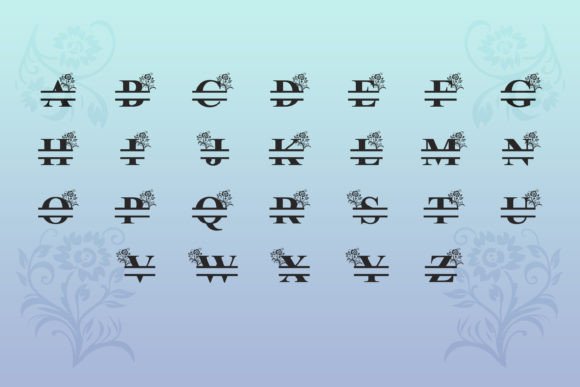
Unleash the Beauty of Nature in Your Designs
Have you ever found yourself sitting in a lush garden, surrounded by vibrant flowers and the soothing sounds of nature, feeling inspired to create something truly special? That’s exactly the moment when the idea for a stunning new font struck us – the Bloomin’ Monogram Font.
This gorgeous floral monogram font is designed to capture the essence of nature’s beauty and bring a touch of elegance and flair to your projects. With Bloomin Monogram Font, you can easily add a personal touch to your designs, from wedding invitations to greeting cards, and even custom merchandise.
For designers looking to add a unique and sophisticated element to their work, the Bloomin Monogram Font is a valuable addition to any toolkit. Its versatility and beauty make it an ideal choice for a wide range of creative projects, from fine art to commercial design.
Bloomin Monogram Font Key Features
- Unique Characteristic: The font features intricate, hand-drawn monogram designs with a floral twist, adding a touch of elegance and sophistication to any design.
- Monogram Customization: The font allows for customization of monogram designs, enabling users to create unique and personalized designs.
- Legibility: Despite its intricate design, the font remains highly legible, making it suitable for use in a variety of contexts, from invitations to branding materials.
Bloomin Monogram Font Review
Overall, I think the Bloomin Monogram Font is a unique and eye-catching addition to any design project. Here are some things that work well:
- ✨ Beautifully crafted letterforms that add a touch of elegance to any design
- ✨ Great for creating personalized monograms or logos
- ✨ Supports a wide range of languages, making it a versatile choice for designers
However, I do have a few reservations about this font:
- ⚠️ Some letters may appear slightly too ornate or overwhelming in certain contexts
- ⚠️ Limited flexibility when it comes to font sizes – it’s best suited for smaller to medium-sized designs
- ⚠️ Not ideal for body text, as it can be difficult to read at larger font sizes
Overall, I would recommend the Bloomin Monogram Font for designers looking to add a touch of sophistication and personality to their projects. While it has some limitations, it’s a great choice for creating custom monograms, logos, or other design elements that require a unique and eye-catching aesthetic.
Tips for Getting the Most Out of Bloomin Monogram Font
Use Bloomin Monogram Font to add a touch of elegance to your designs, such as wedding invitations, business cards, or social media graphics. Experiment with different font sizes and colors to create a unique look. You can also combine Bloomin Monogram Font with other fonts to create a visually appealing design.
Bloomin Monogram Font is ideal for:
– Any design project that requires a touch of elegance and sophistication.
The Bloomin Monogram Font is optimized for use at font sizes between 12pt and 72pt. While it can be used at smaller or larger sizes, the design may not be as effective at extreme sizes.
Q: Does the Bloomin Monogram Font support multilingual characters?
The Bloomin Monogram Font includes a basic Latin character set, but it does not support non-Latin languages. If you need to use the font for multilingual text, please contact the font creator for more information on available options and customizations.